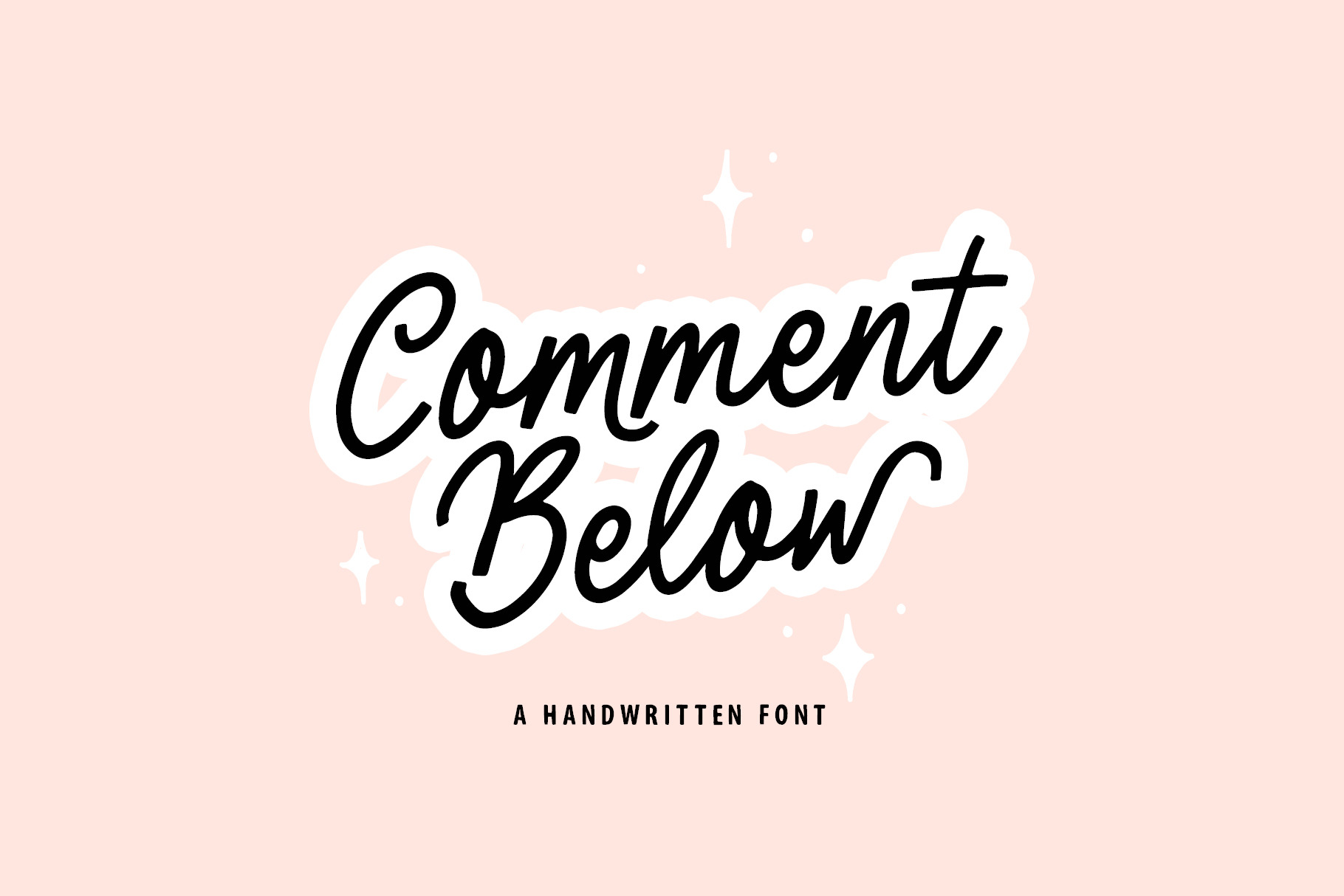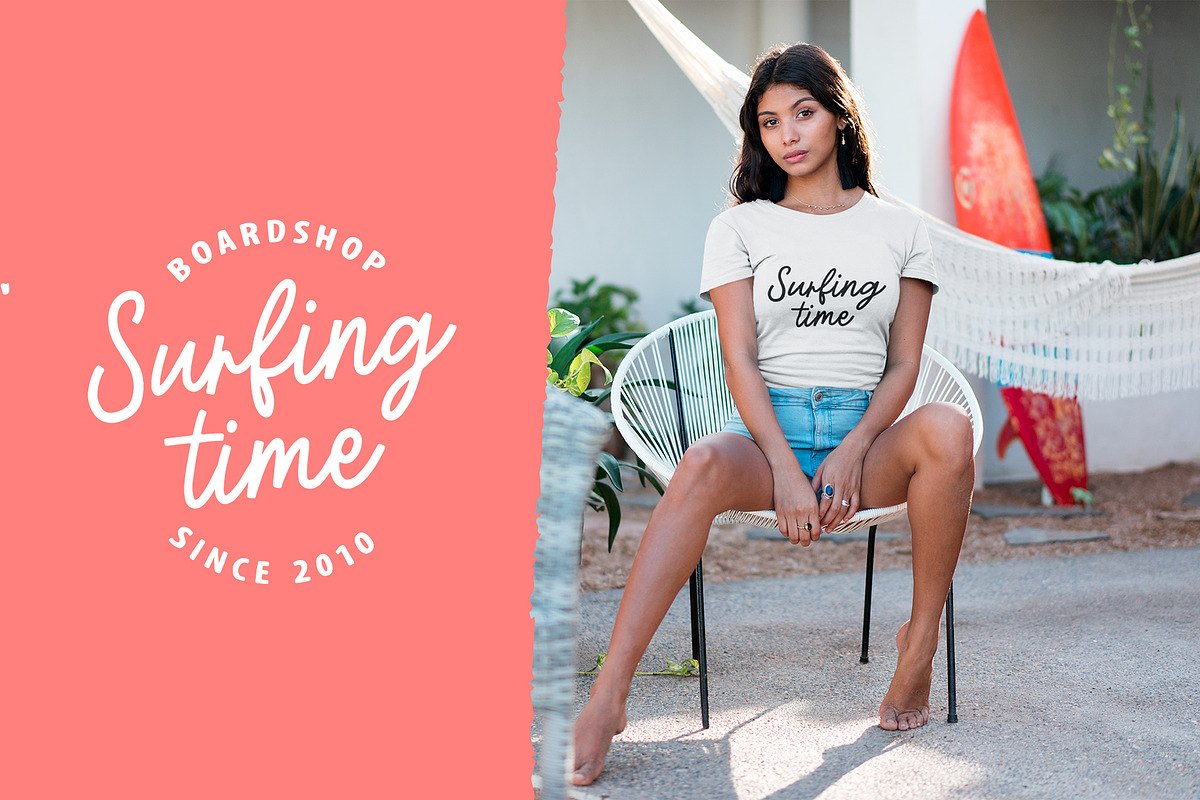
Comment Below Font
Comment Below will be perfect for wedding lettering, beautiful frame for your home, book covers, greeting cards, logos, marketing, magazines or anything that requires cute handwritten lettering :)